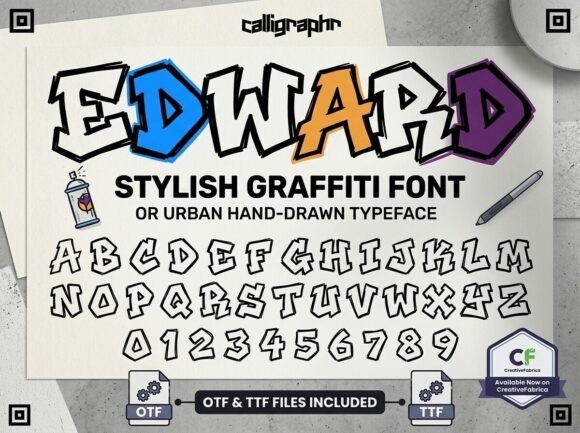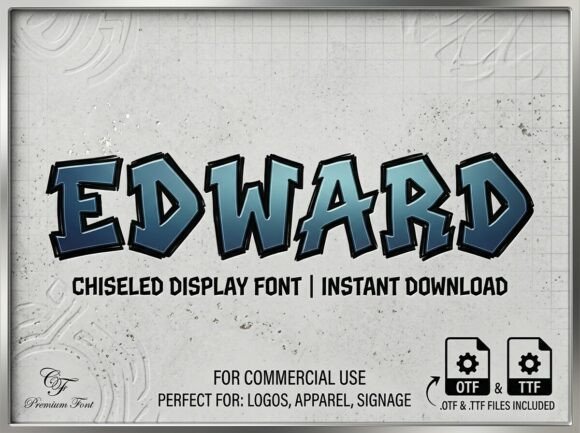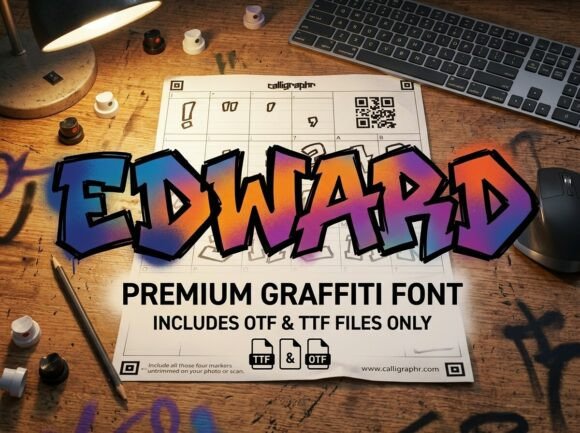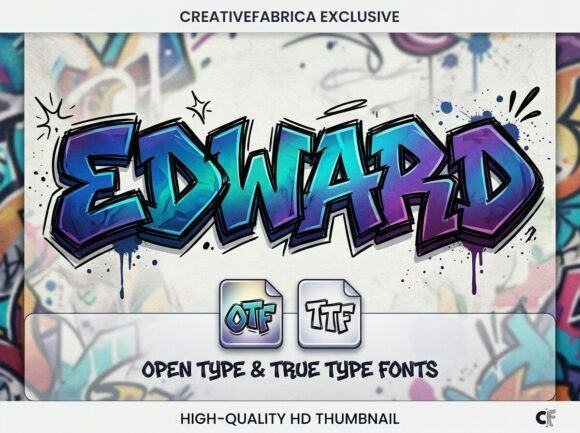
Introduction to Edward Font
Edward | Stylish Graffiti Font Inject raw energy and urban edge into your work with Edward, a bold, hand-drawn graffiti typeface.
Designed with a gritty, blocky aesthetic and thick outlines, this font captures the spirit of street art and underground culture It’s a standout choice for streetwear logos, event posters, gaming graphics, or any project that needs a loud, rebellious, and unmistakably modern personality.
Key Features of Edward Font
Why Choose Edward Font?
Edward Font offers exceptional quality and versatility, making it a valuable addition to your design toolkit. Whether you’re creating for personal projects or commercial use, Edward Font delivers professional results.